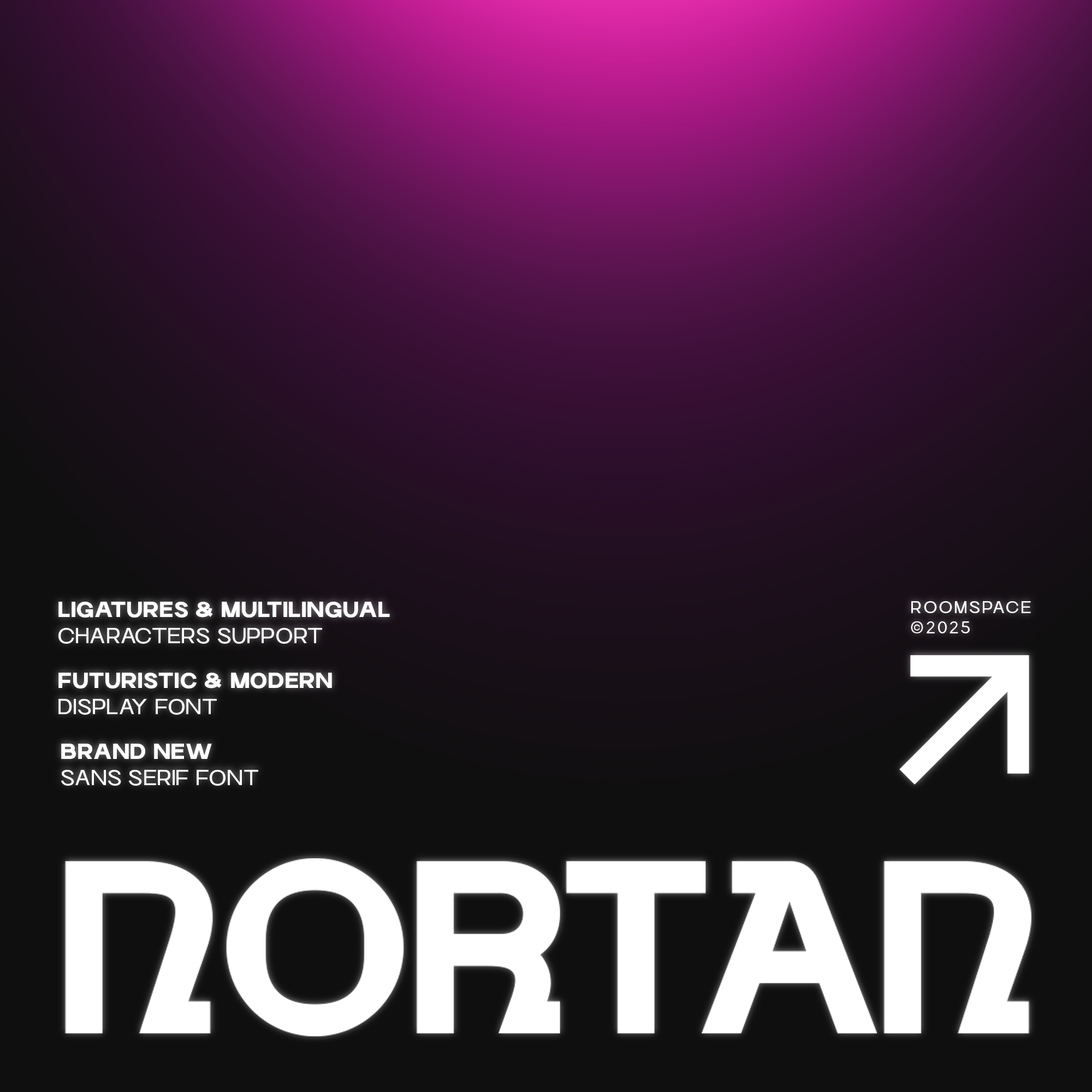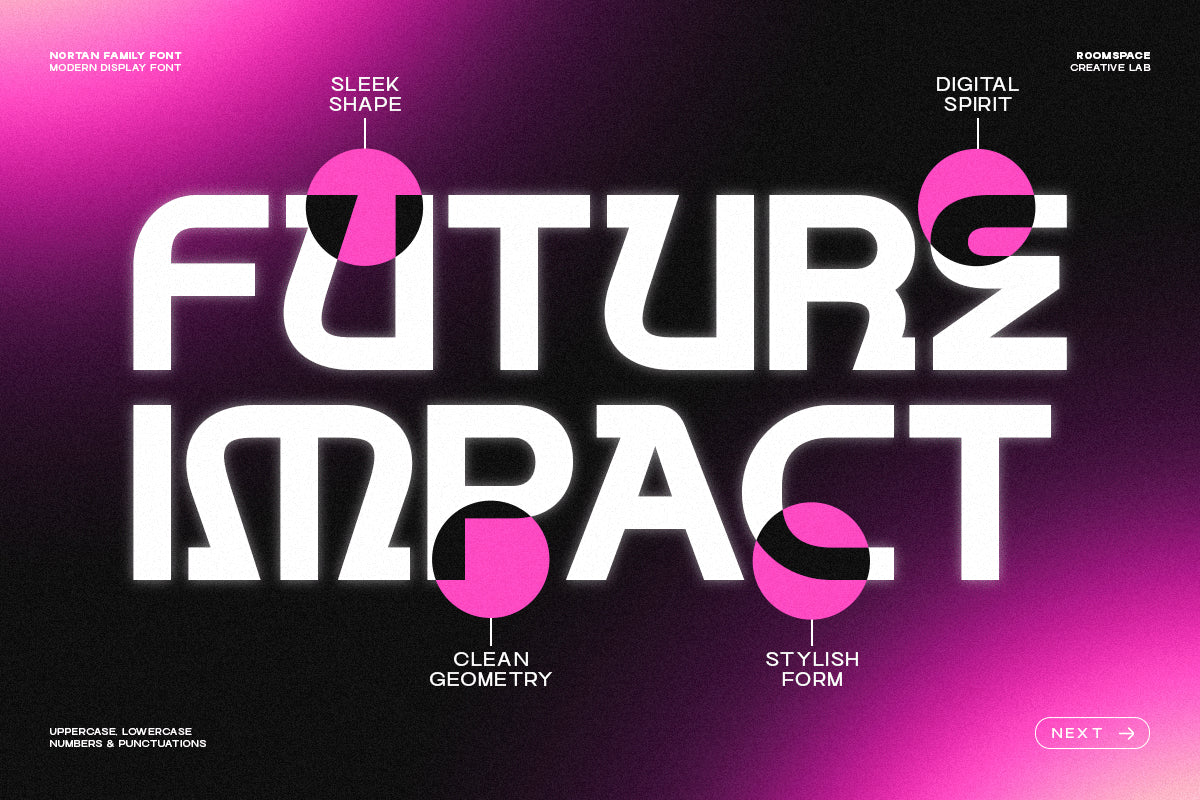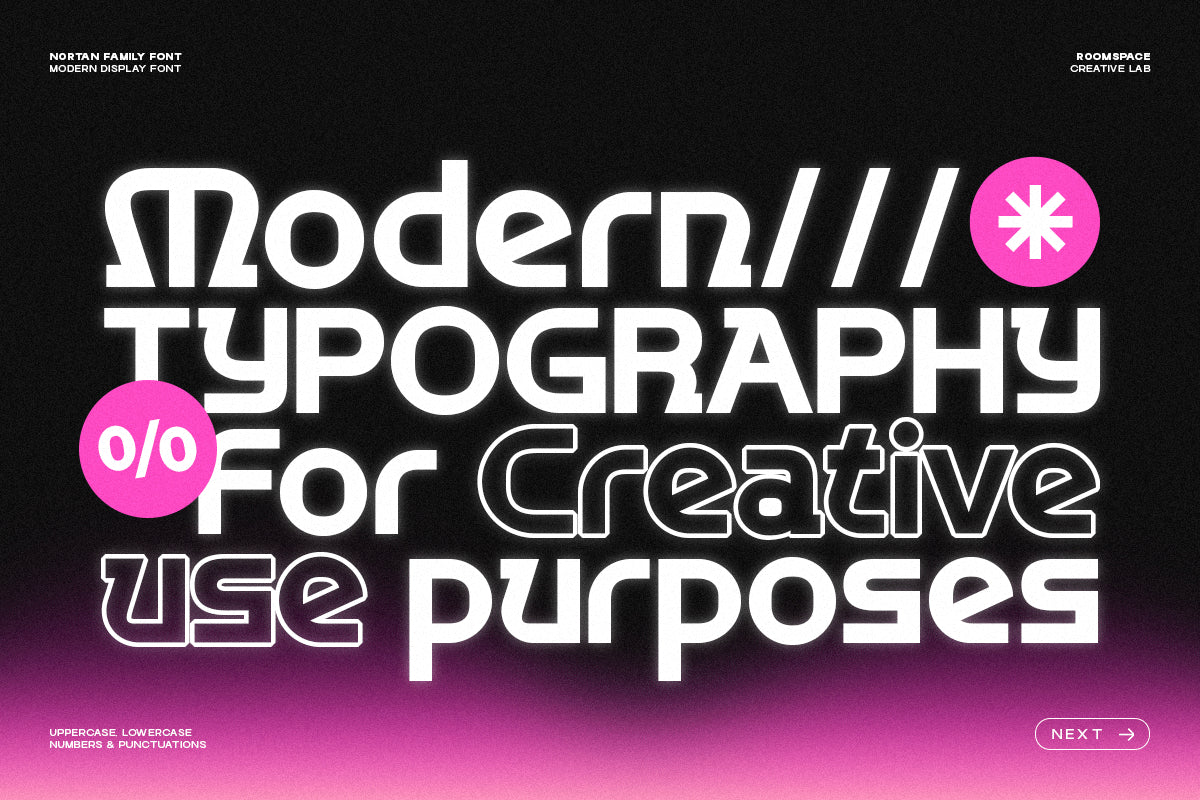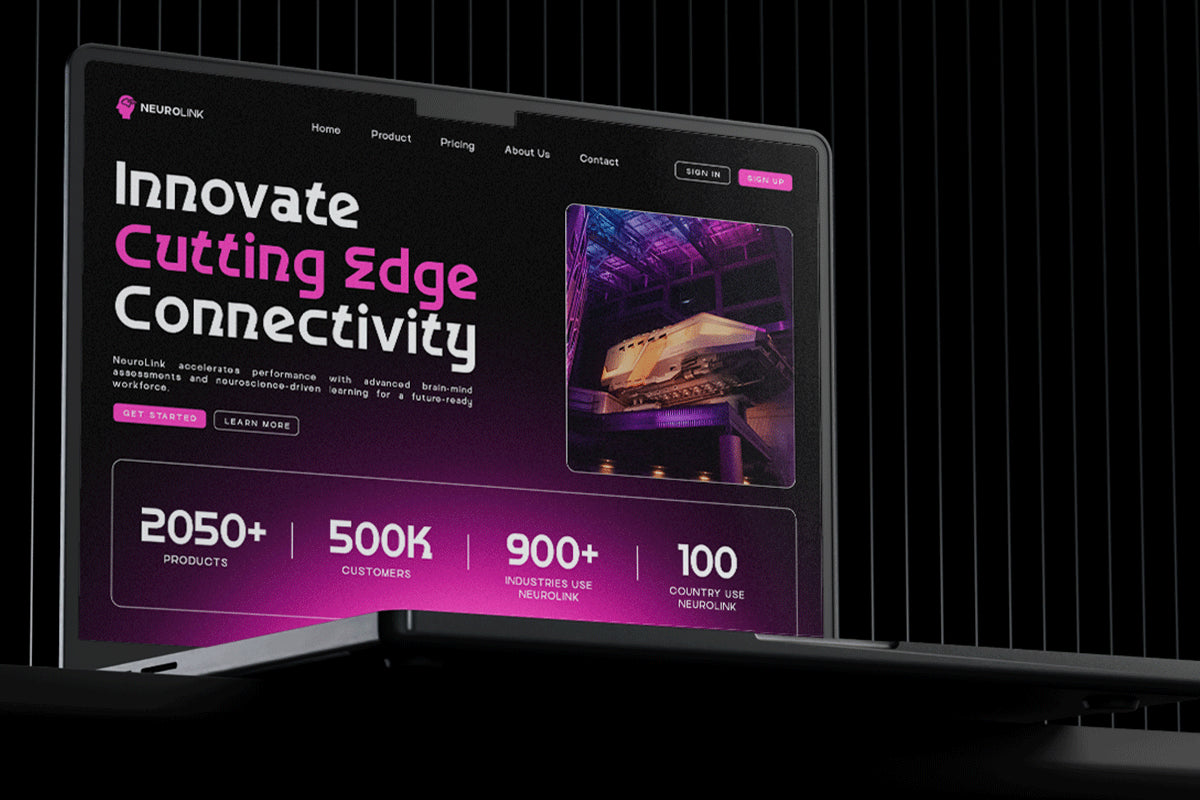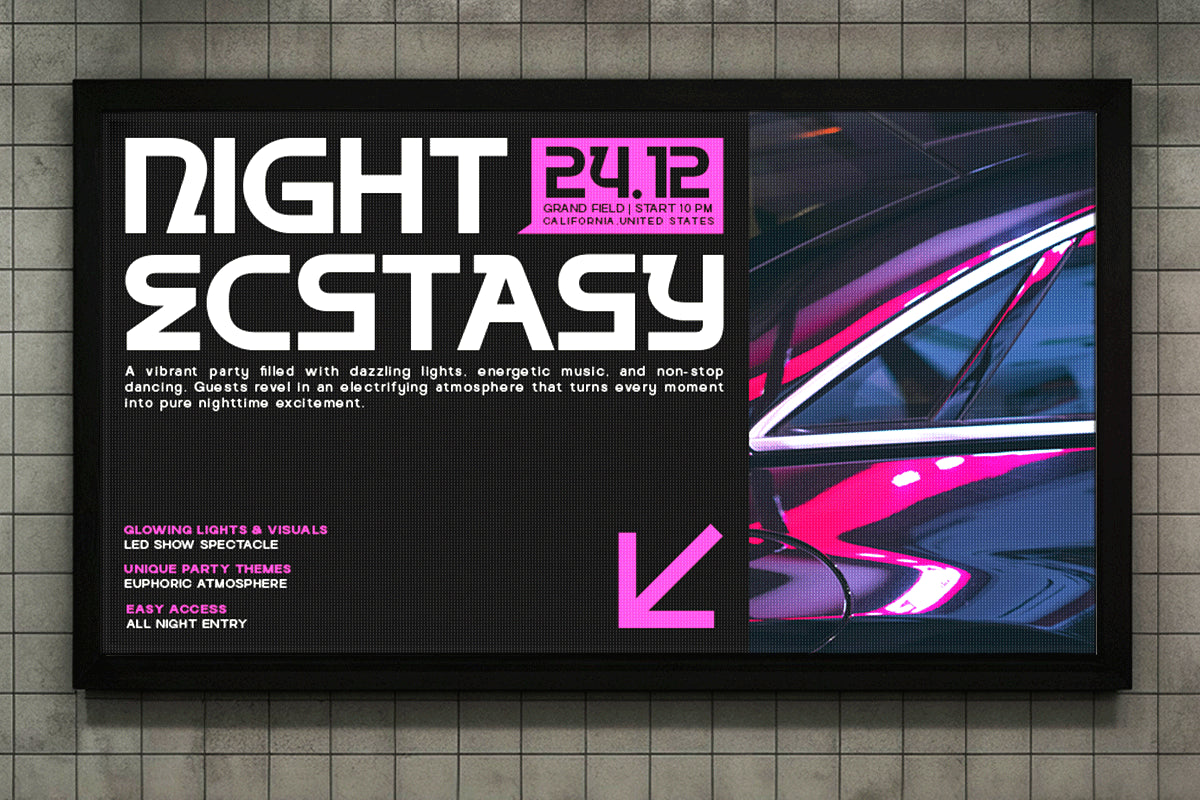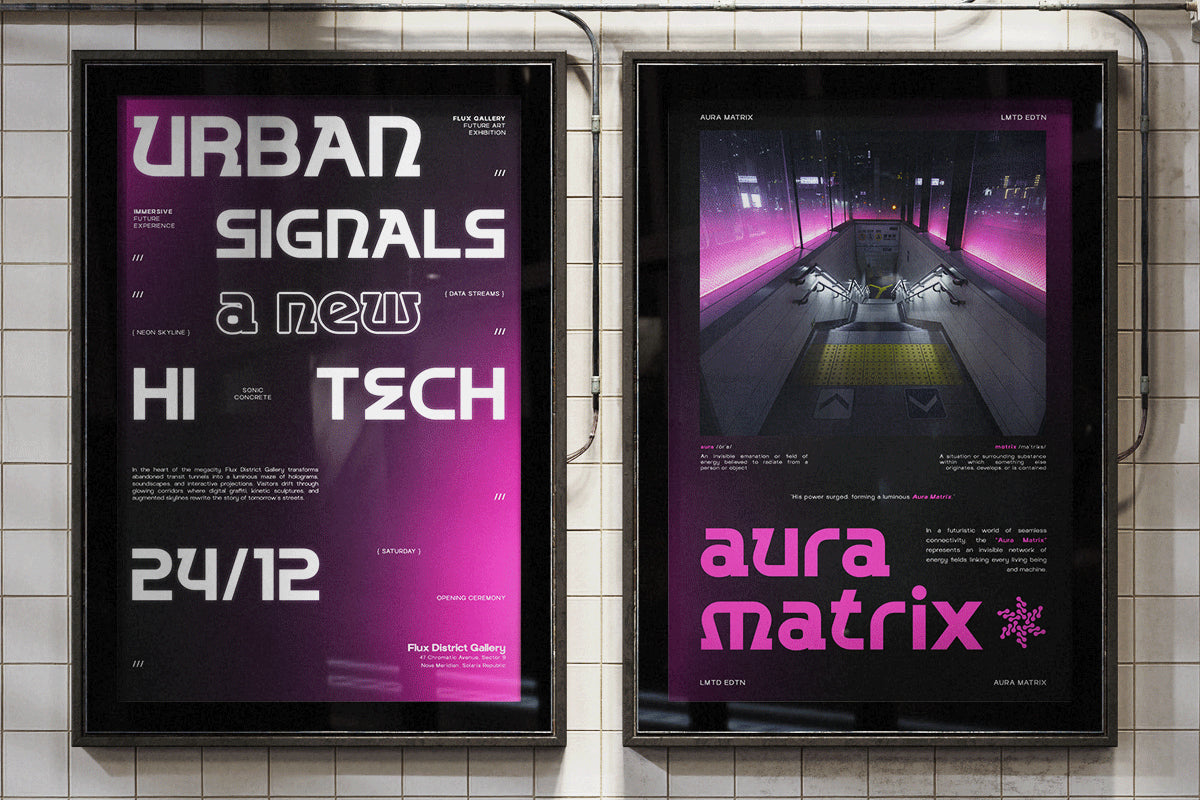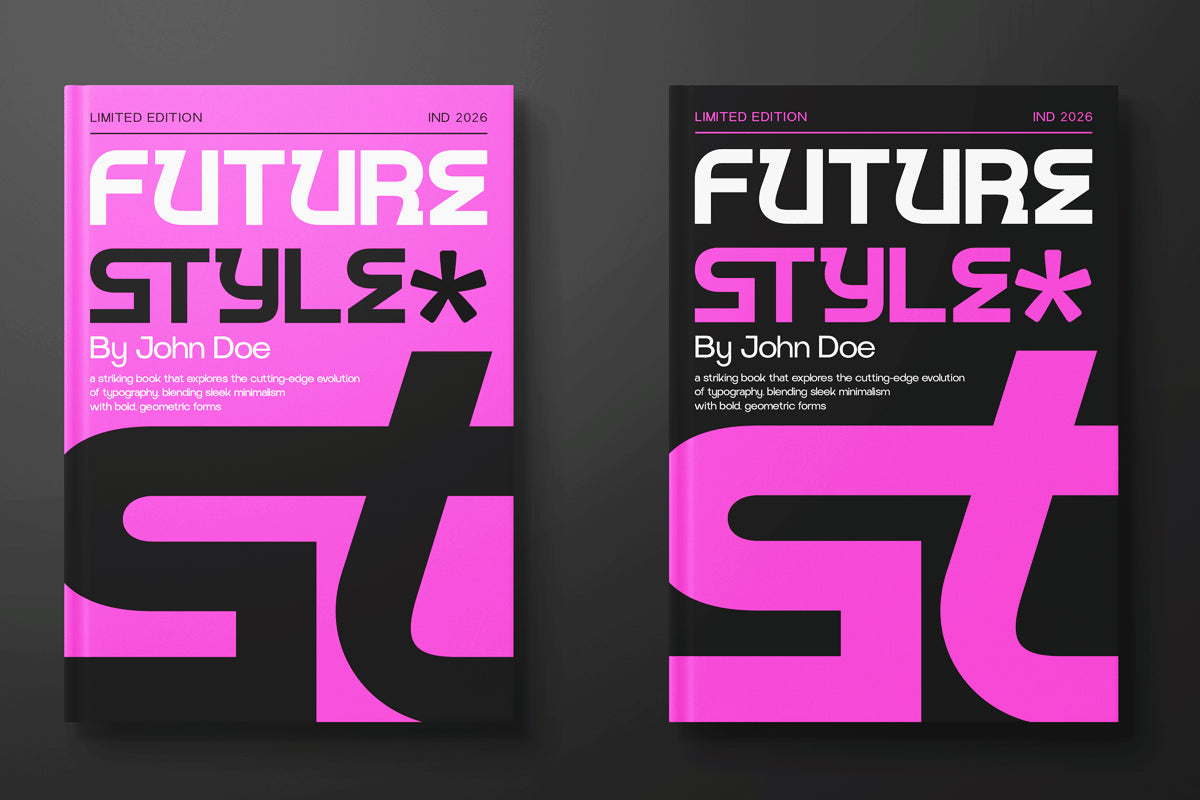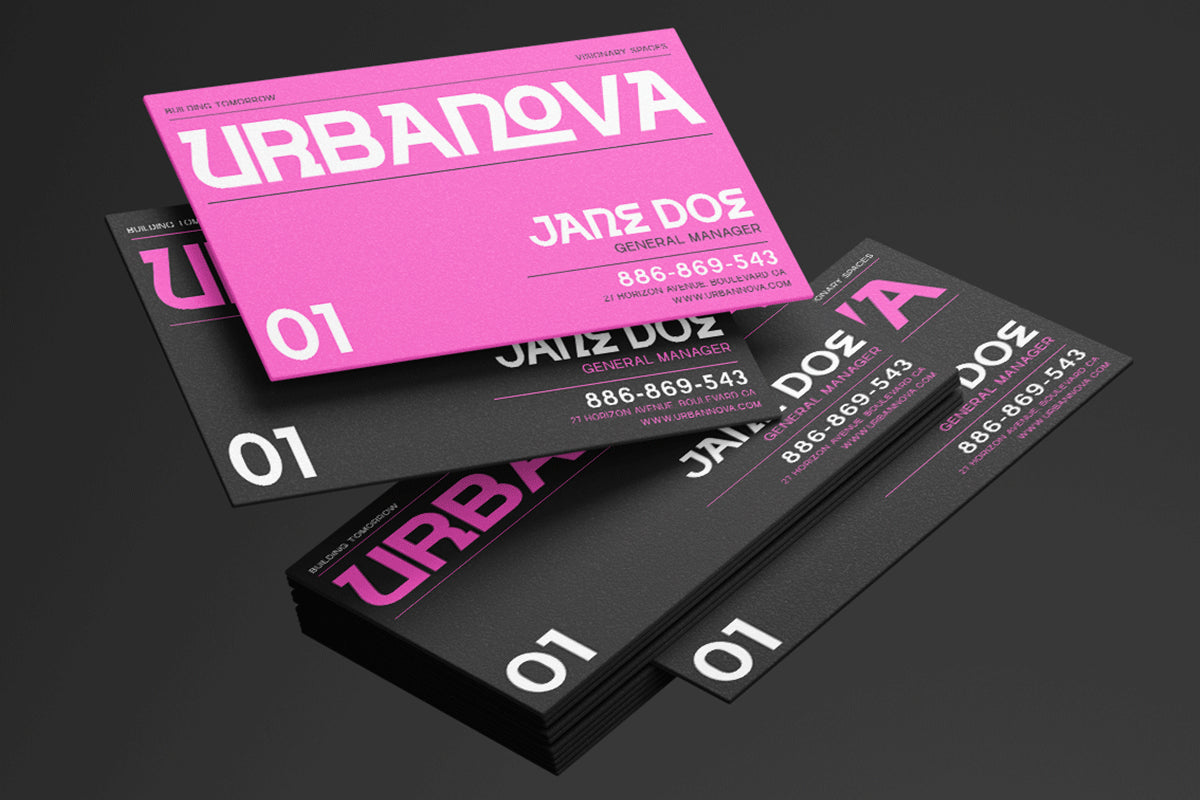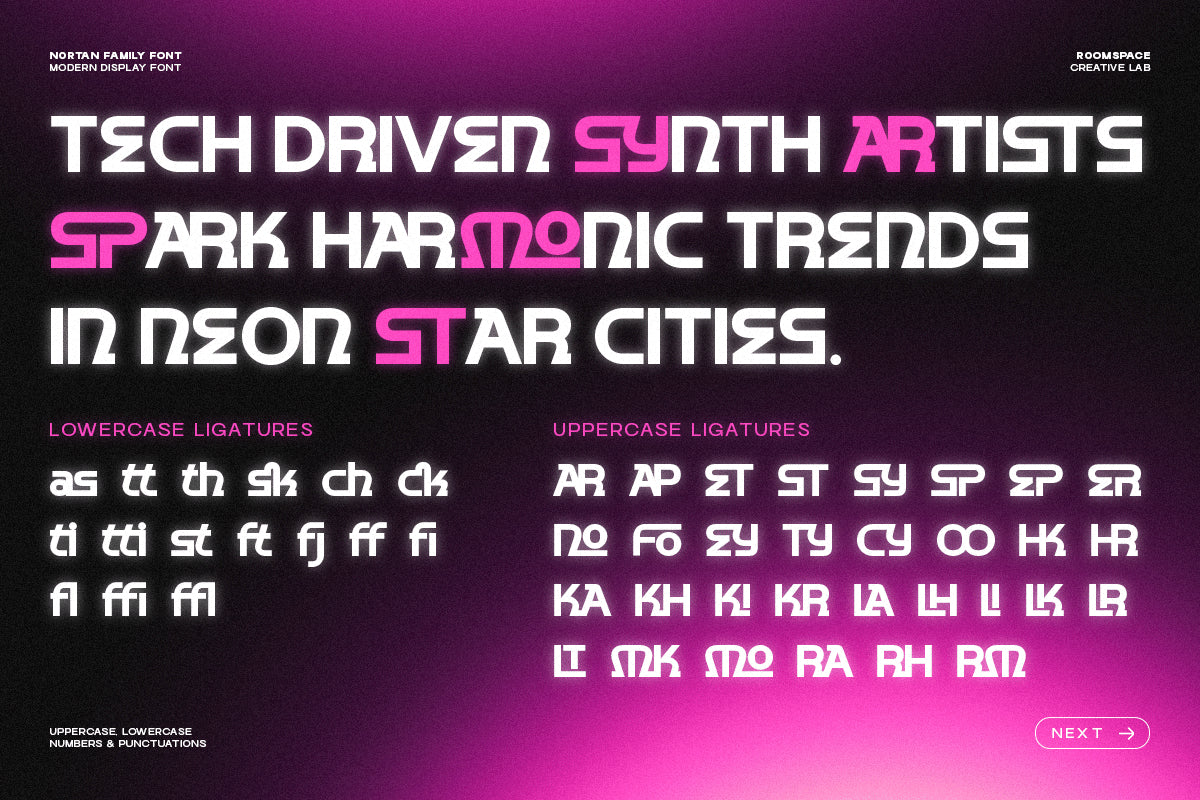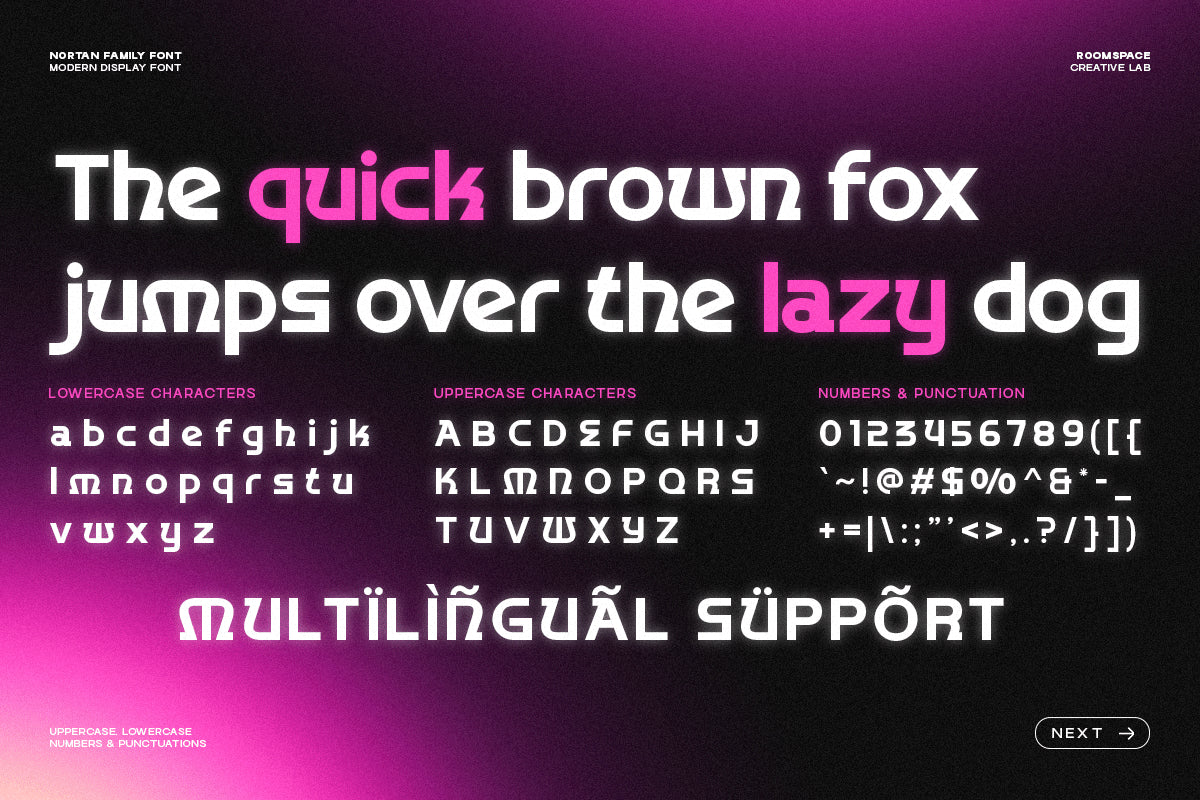
Nortan – Futuristic Modern Display Sans Font
Nortan is a futuristic modern sans-serif display typeface designed for high-tech branding and digital-forward visual systems. Built with a bold, innovative mindset, Nortan blends clean geometry with distinctive character to create typography that feels sharp, intelligent, and ahead of its time. Defined by unique letterforms, smooth geometric flow, and contemporary ligatures, Nortan delivers a strong visual identity without sacrificing clarity. Each character is carefully constructed to feel precise and intentional, allowing the font to perform confidently in both expressive headlines and structured interface environments. Its futuristic details add personality while maintaining balance and readability. Nortan is designed to thrive in modern applications such as logos, UI/UX design, editorial headlines, digital interfaces, advertising campaigns, and sci-fi inspired visuals. Its display-driven nature makes it ideal for creating bold focal points, while its refined construction ensures consistency across branding systems and digital platforms.
Futuristic & modern display style
Ligatures + multilingual support
Uppercase character set
Clean geometry for strong visual impact
Nortan is a futuristic modern sans-serif display typeface designed for high-tech branding and digital applications. It features unique letterforms, smooth geometric flow, contemporary ligatures, and is available in OTF, TTF, and WOFF formats, offering multilingual support and an uppercase character set for strong visual impact.